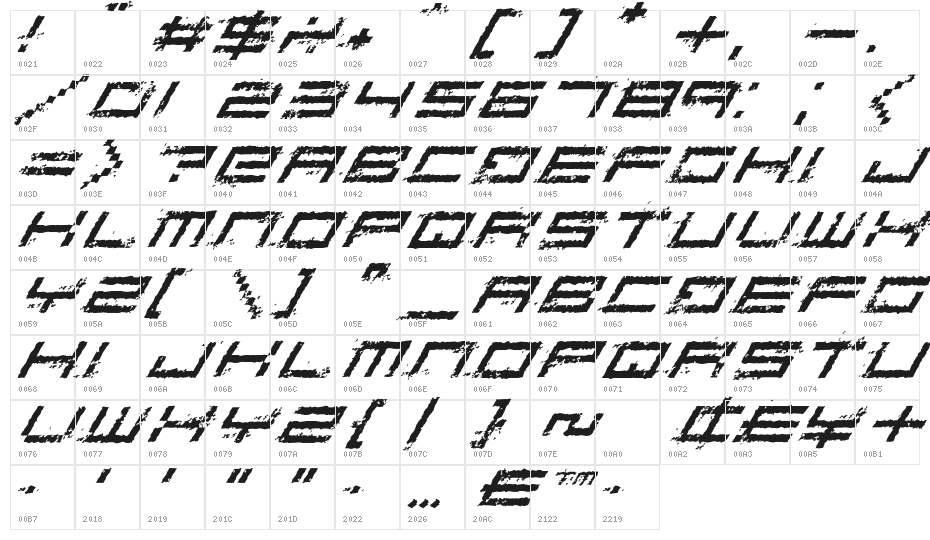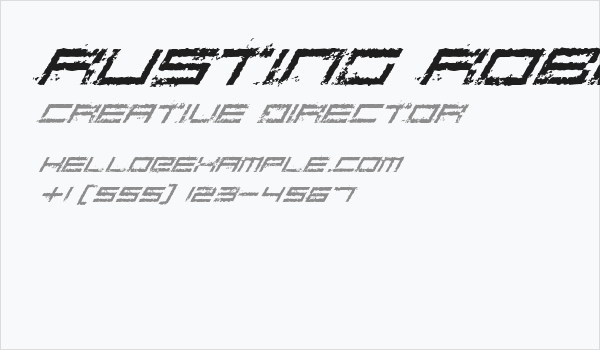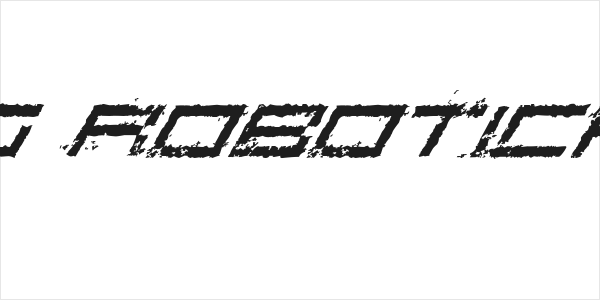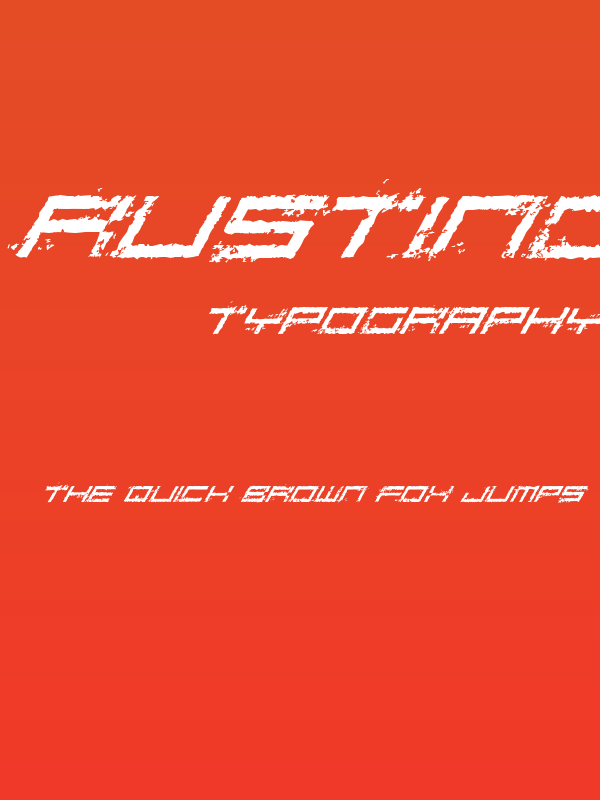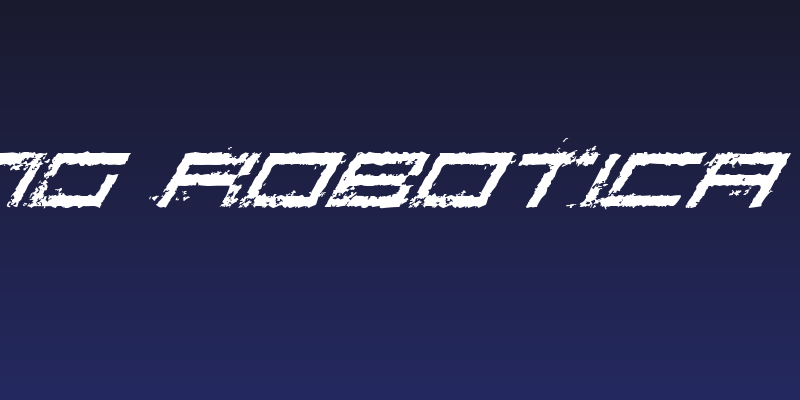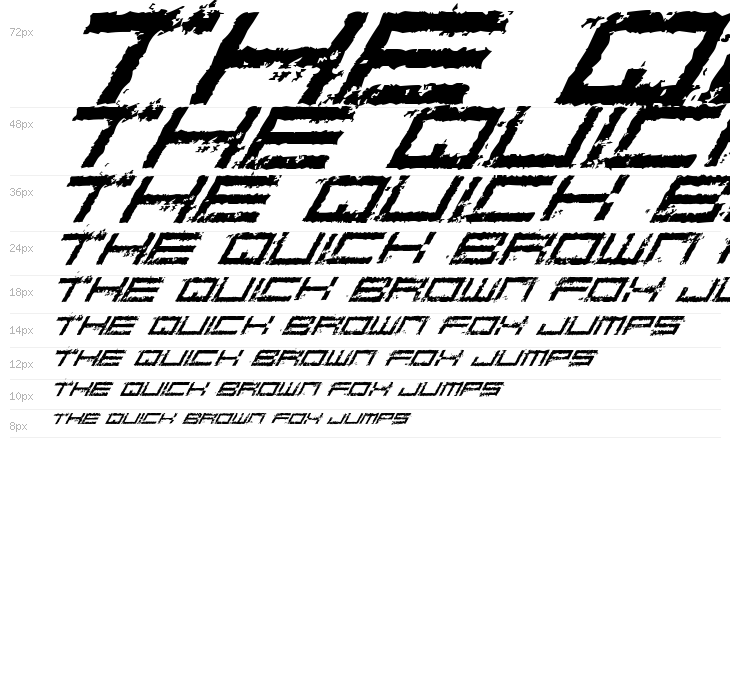
Rusting Robotica Italic Font
Rusting Robotica Italic Description
This font features a distressed, futuristic style with a mechanical and industrial feel. The characters are italicized, giving them a dynamic and forward-leaning appearance. The texture of the letters suggests wear and tear, reminiscent of rusted metal, which adds a gritty, rugged aesthetic. The angular shapes and sharp edges contribute to a robotic and technological vibe, making it suitable for themes related to machinery, technology, or science fiction. The uppercase and lowercase letters maintain a consistent style, and the numbers and special characters are designed to match the overall theme, ensuring a cohesive look across all text elements.
| Overall Style | Futuristic, Industrial |
| Proposed Projects | Ideal for science fiction book covers, tech-themed posters, video game graphics, and industrial design branding. |